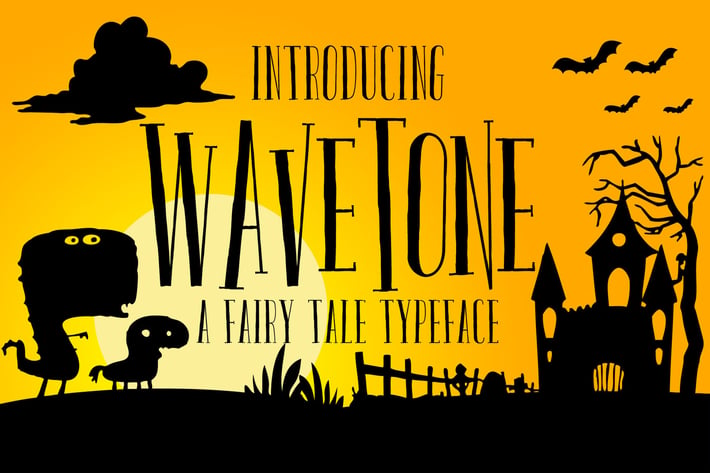
Wavetone Typeface
graptailstudio
Wavetone is a display type, inspired by classic advertisements and movie posters. Although it also suitable for another purpose, such as headline, insignia, badge, invitation, greeting cards, etc. With a combination of highly vintage feels and the OpenType features put together on it, you can easily create a harmonic attractive message for your design.